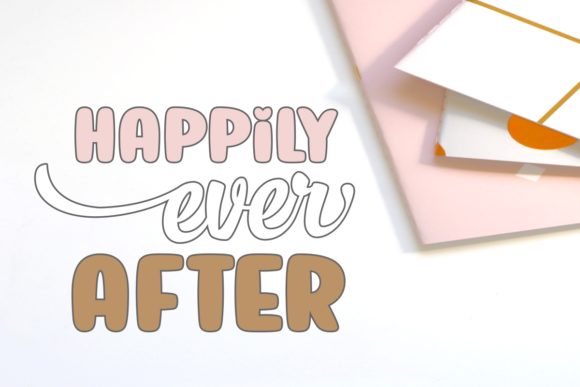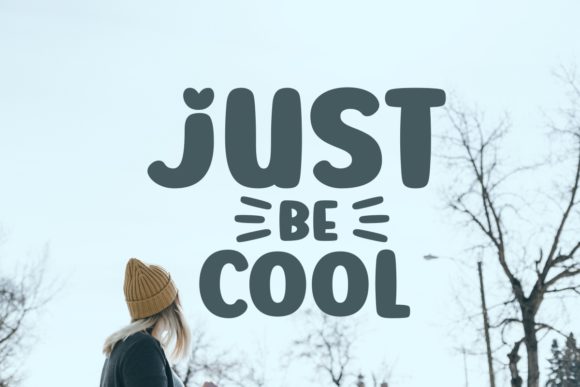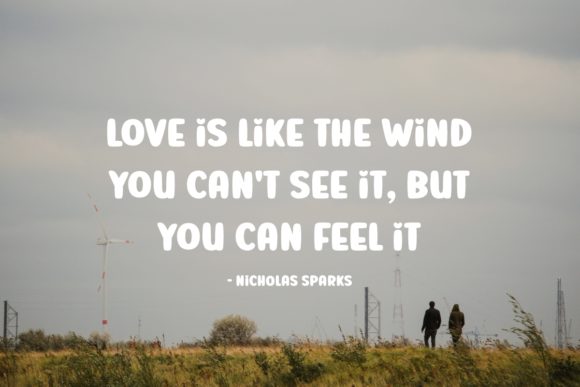
Introduction to Griela Font
Griela is a bold and thick lettered display font.
It will add an incredibly joyful touch to your designs Add it to each of your creative ideas and notice how it makes them stand out.
Griela Font offers exceptional quality and versatility, making it a valuable addition to your design toolkit. Whether you’re creating for personal projects or commercial use, Griela Font delivers professional results.